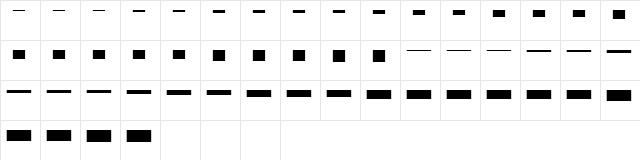
RulesFont Regular
Design Context for RulesFont Typeface
RulesFont offers clean, dependable letterforms without strong stylistic allegiance, making it a practical choice for designers who need flexibility.